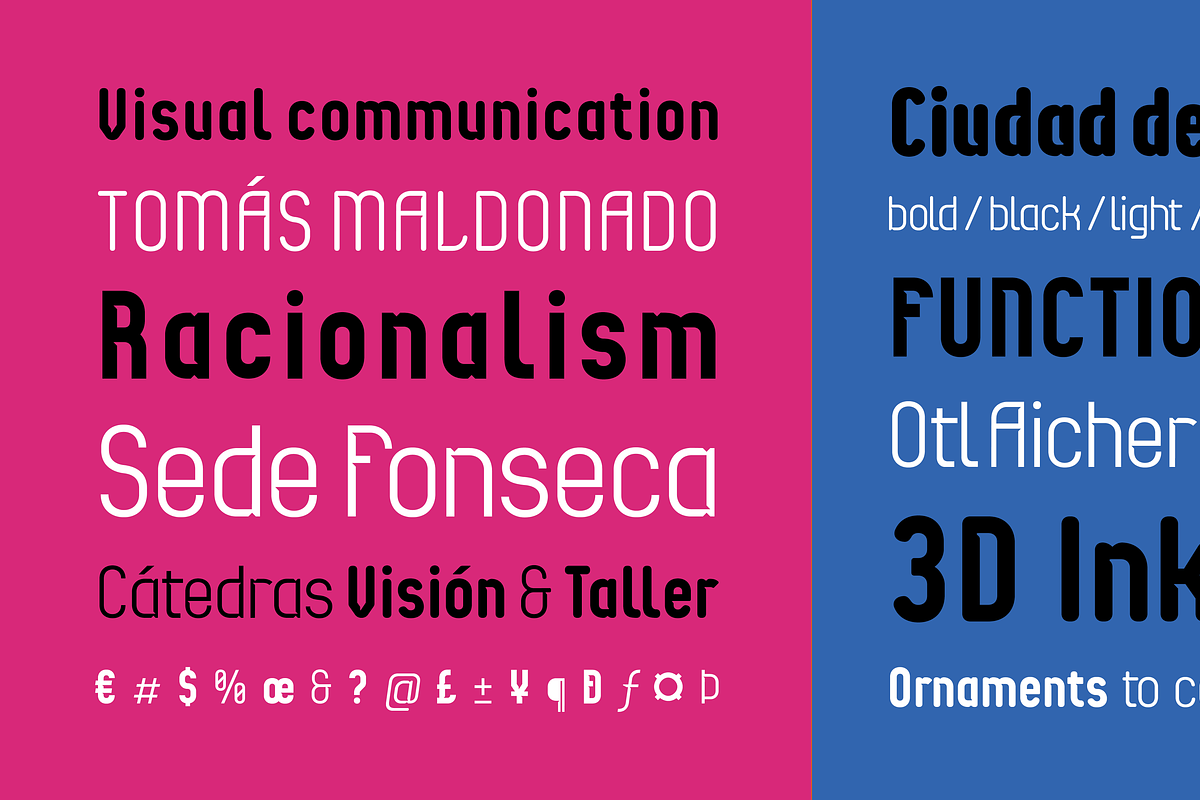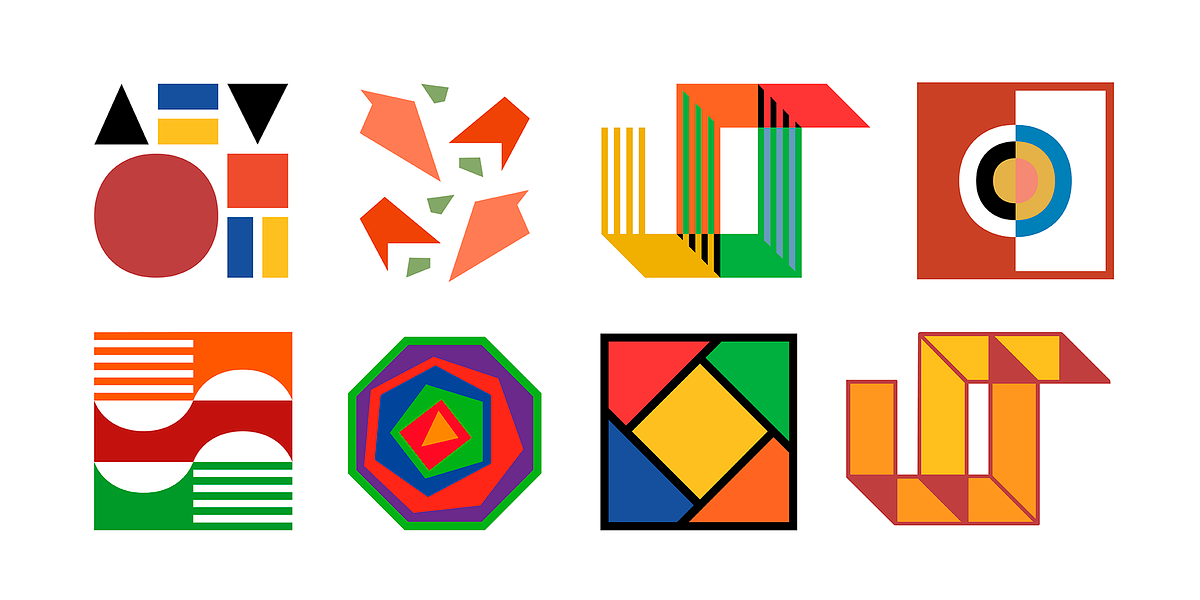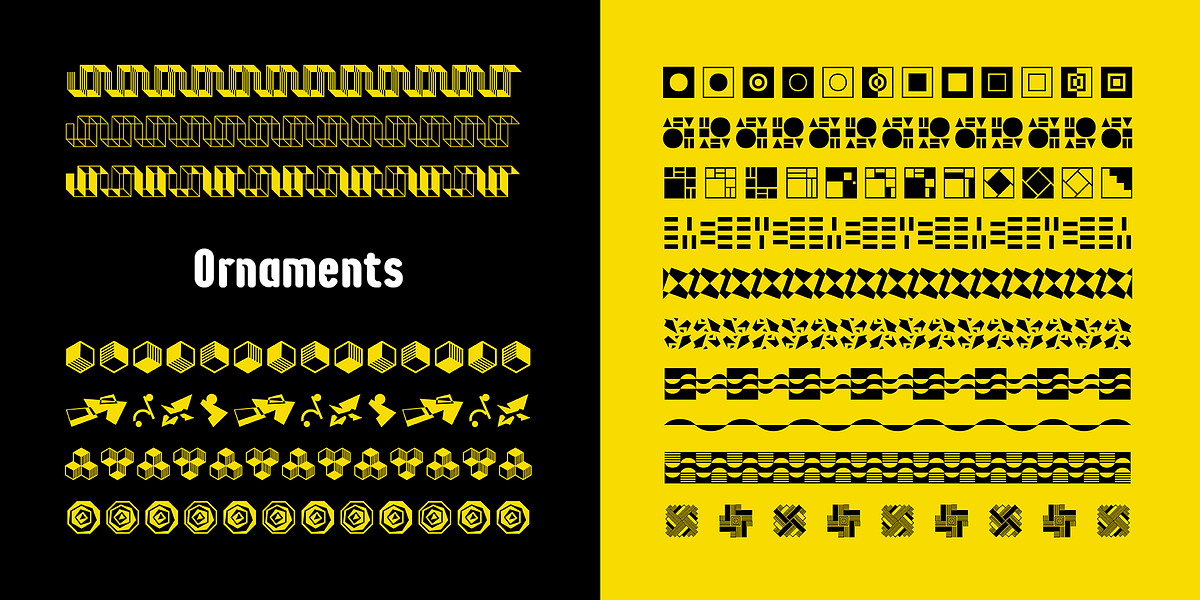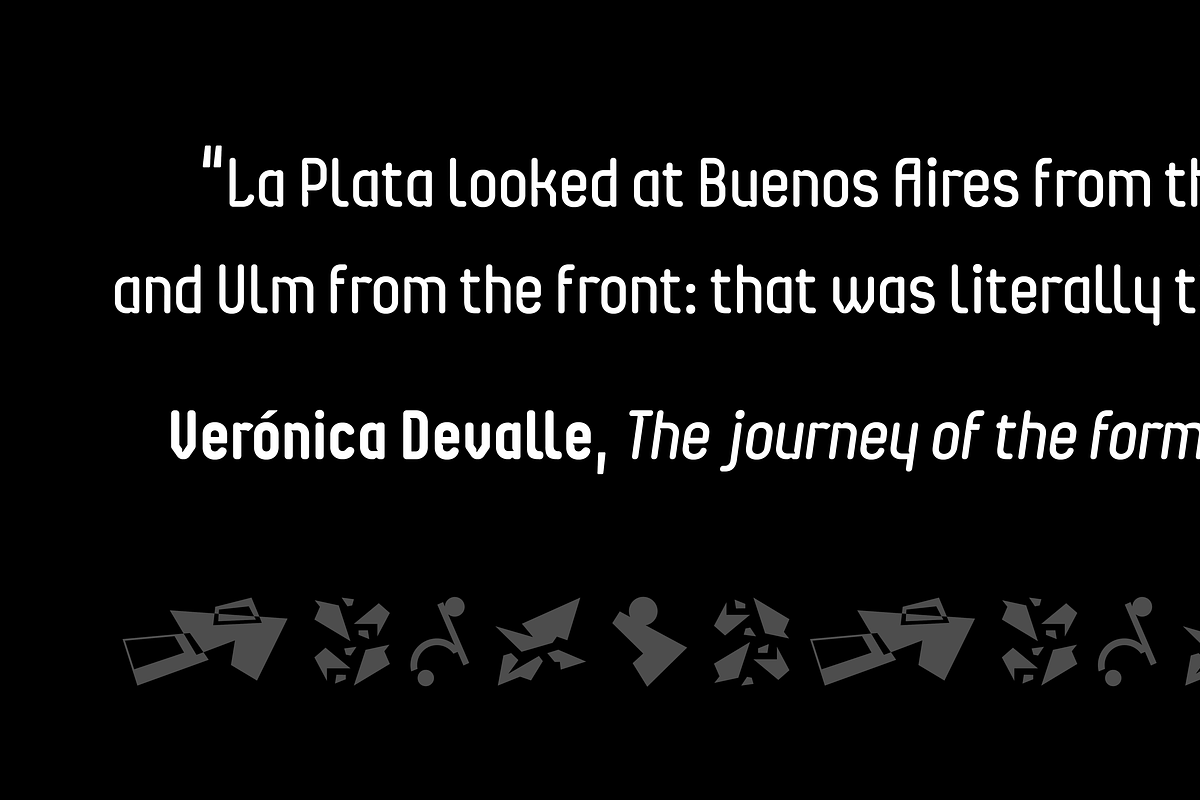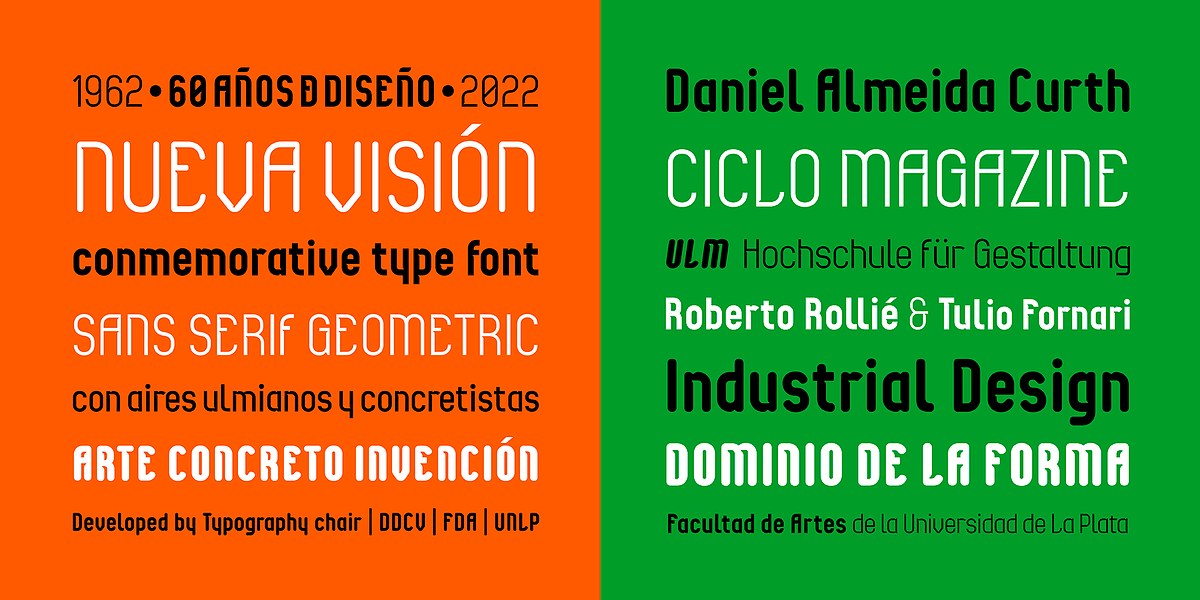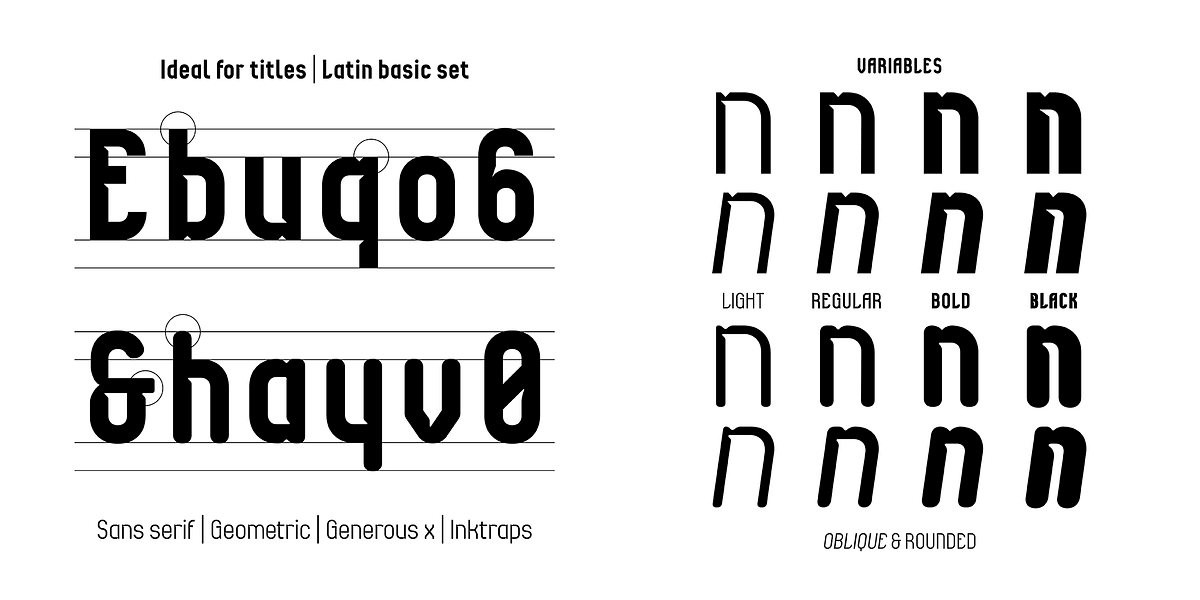
Ascetica
Ascética is a modern geometric sans serif font designed by Fabio Ares and the Typography Chair at the National University of La Plata. It draws inspiration from the Concrete Invention Art movement and the Ulm School, both known for their emphasis on functional design and geometric forms. The font features ink traps, which create an illusion of three-dimensionality. Ascética comes in 16 variable weights and styles, including variations in tone (four), inclination (four), and shape (one rounded option). It also includes a set of concrete-inspired dingbats that can be used individually or combined to create borders and boxes.